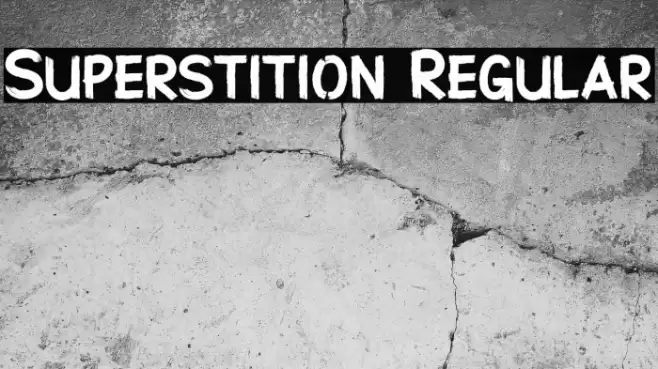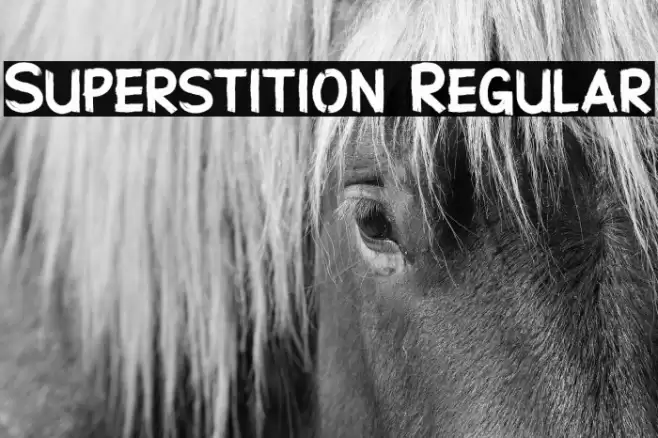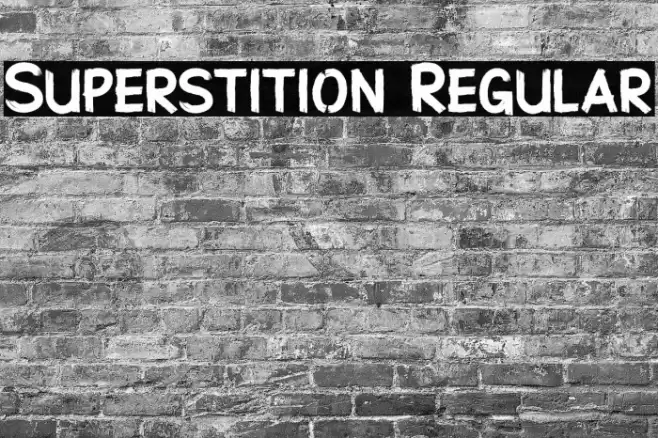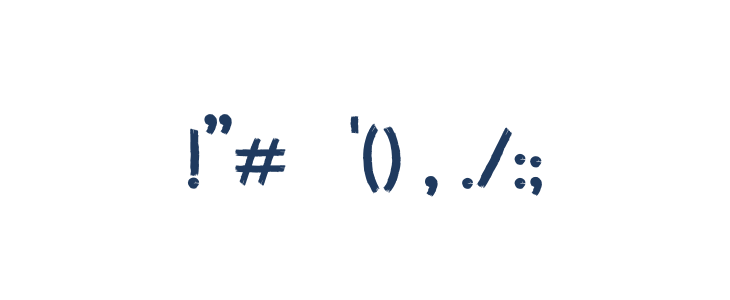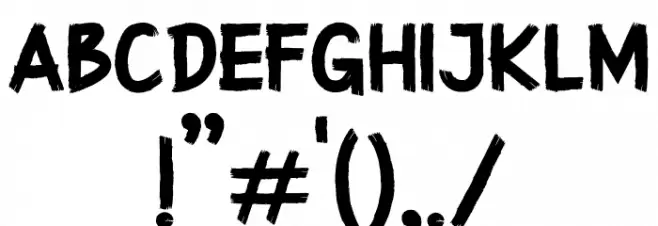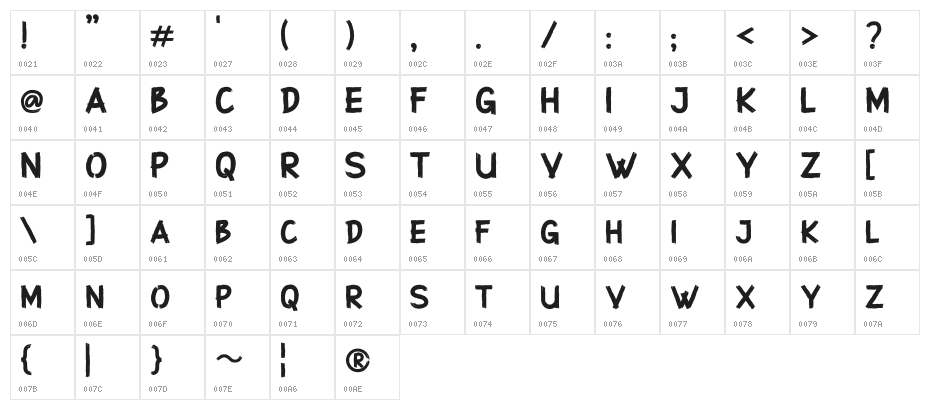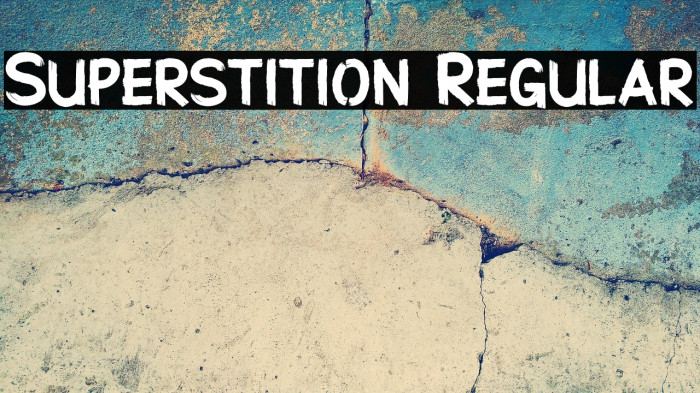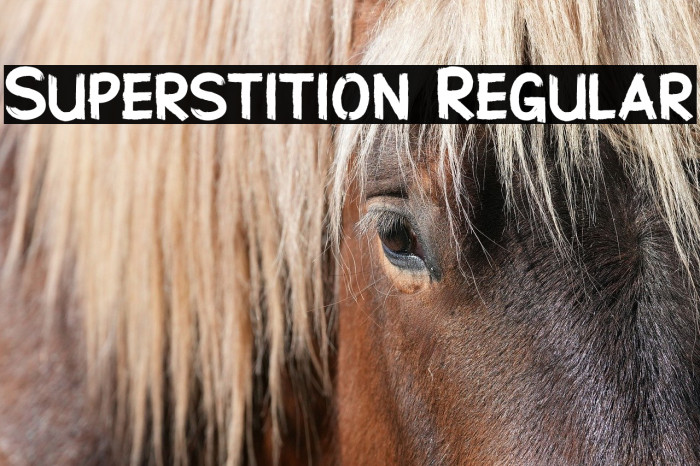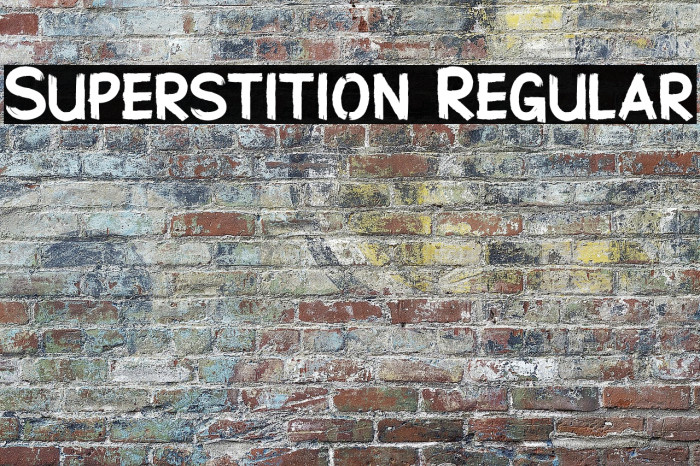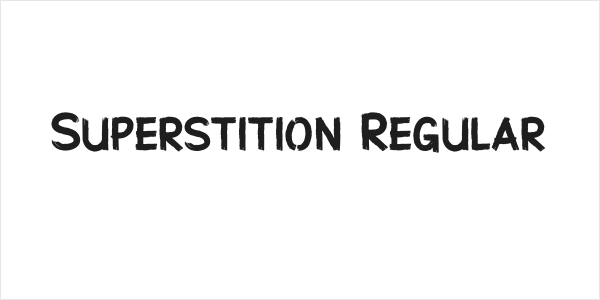
Superstition Regular Font
Superstition Regular Description
This font features a bold, brush-like appearance with a hand-drawn aesthetic. The strokes are uneven, giving it a dynamic and energetic feel. Each letter has a slightly rough texture, adding to its organic and artistic style. The uppercase and lowercase letters maintain a consistent weight, contributing to its bold presence. The numerals and special characters follow the same stylistic approach, ensuring uniformity across all glyphs. This font is ideal for projects that require a strong visual impact and a touch of creativity.
A bold, brush-style font with a hand-drawn, artistic look from Regular fonts.
- Proposed Projects: Perfect for posters, album covers, branding, and creative projects that need a bold statement.